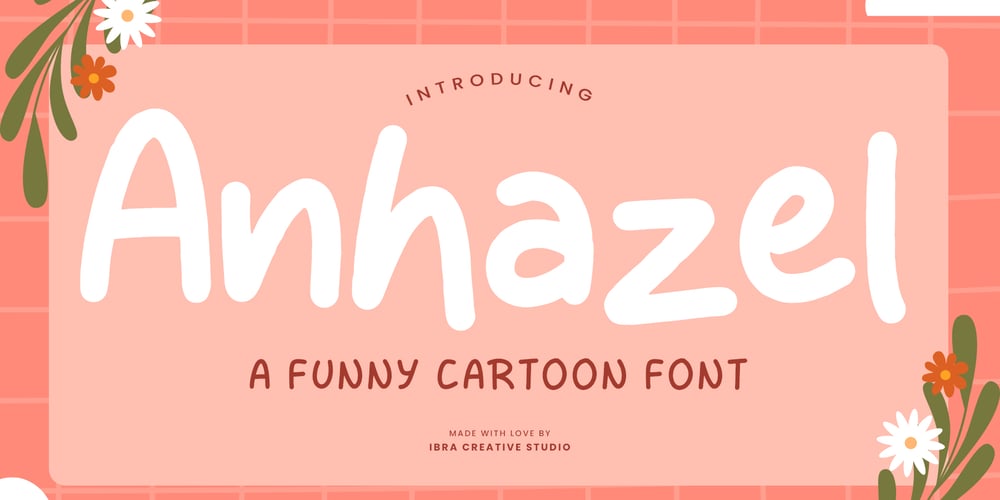
Anhazel Font Family was designed by Roisatul Azizah and published by IbraCreative. Anhazel contains 1 styles and family package options. Anhazel – A Funny Cartoon FontAnhazel, a whimsical and playful cartoon font, brings an infectious sense of humor to any project it graces. With its exaggerated strokes and quirky characters, each letter in Anhazel embodies a delightful charm that is sure to bring a smile to the faces of viewers. The playful curves and exaggerated features of this font lend themselves perfectly to comedic designs, children’s books, greeting cards, and any project that calls for a touch of lighthearted fun. Whether used for headlines, captions, or logo design, Anhazel adds a playful and jovial atmosphere, infusing every word with a sense of whimsy and laughter that is bound to capture attention and spread joy. Anhanzel is perfect for branding projects, logo, wedding designs, social media posts, advertisements, product packaging, product designs, label, photography, watermark, invitation, stationery, game, fashion and any projects.Fonts include multilingual support for; Afrikaans, Albanian, Czech, Danish, Dutch, English, Estonian, Finnish, French, German, Hungarian, Italian, Latvian, Lithuanian, Norwegian, Polish, Portuguese, Slovak, Slovenian, Spanish, Swedish.